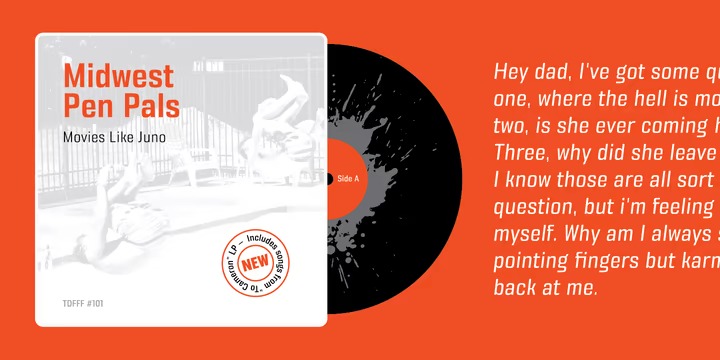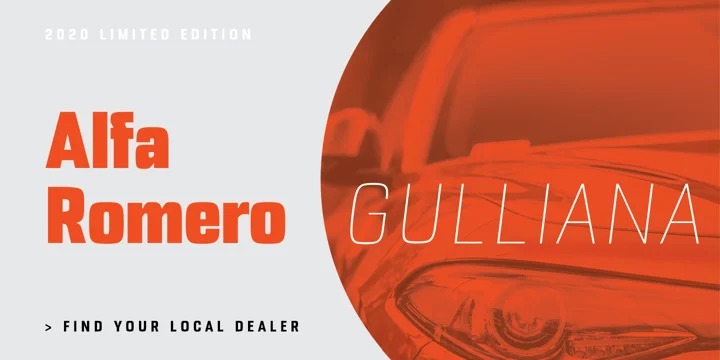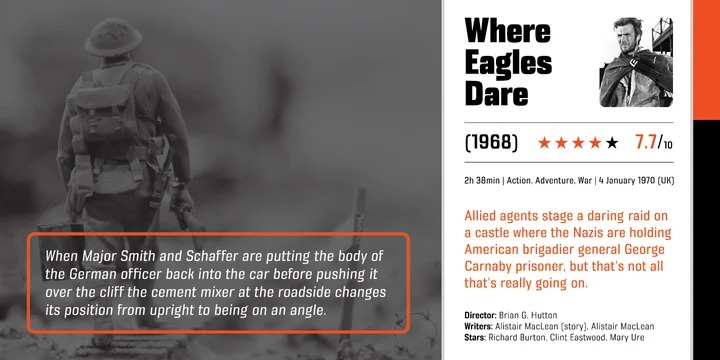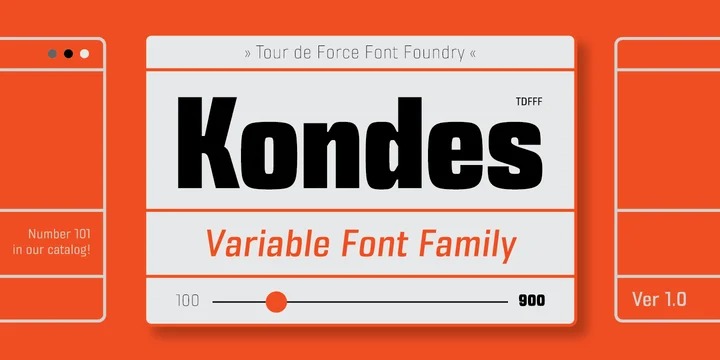
Kondes Sans Serif Font
A typeface influenced by an old iron cast sign on an old Swedish industrial machine. Made from font designer named Tour De Force. It’s simple, compact, straight-in-your-face sans serif family with 9 weights and 9 Italics. It was designed with purpose to serve and to be use in any project, from editorial to website. For example, Black weight could be used effectively as poster type, in big sizes while Regular fits perfectly as main webfont. Stem joining is done with generous ink trap that divides and opens letter contours, so letter breaths in smaller sizes. Contains extended Latin character set.